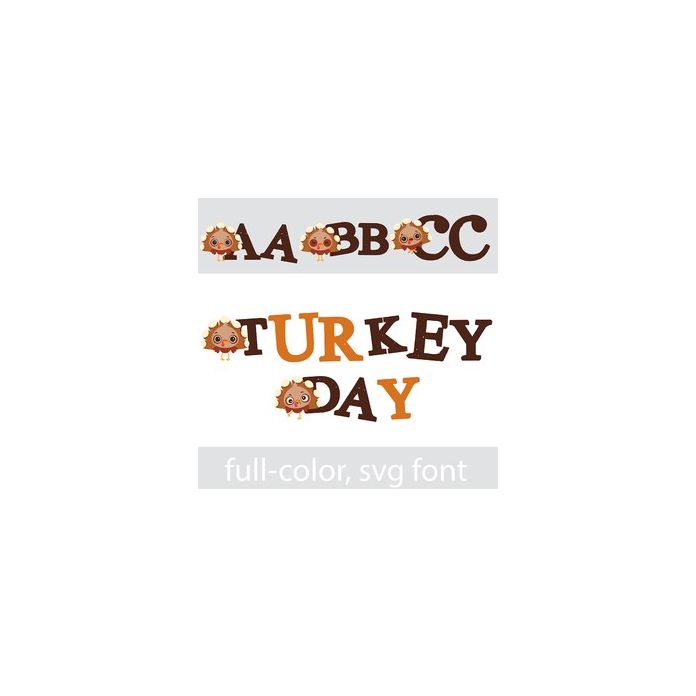
This full-color font features turkeys on the uppercase and a lowercase without. There is an alt case w/ additional colors you can access through your system or Silhouette's glyph map.